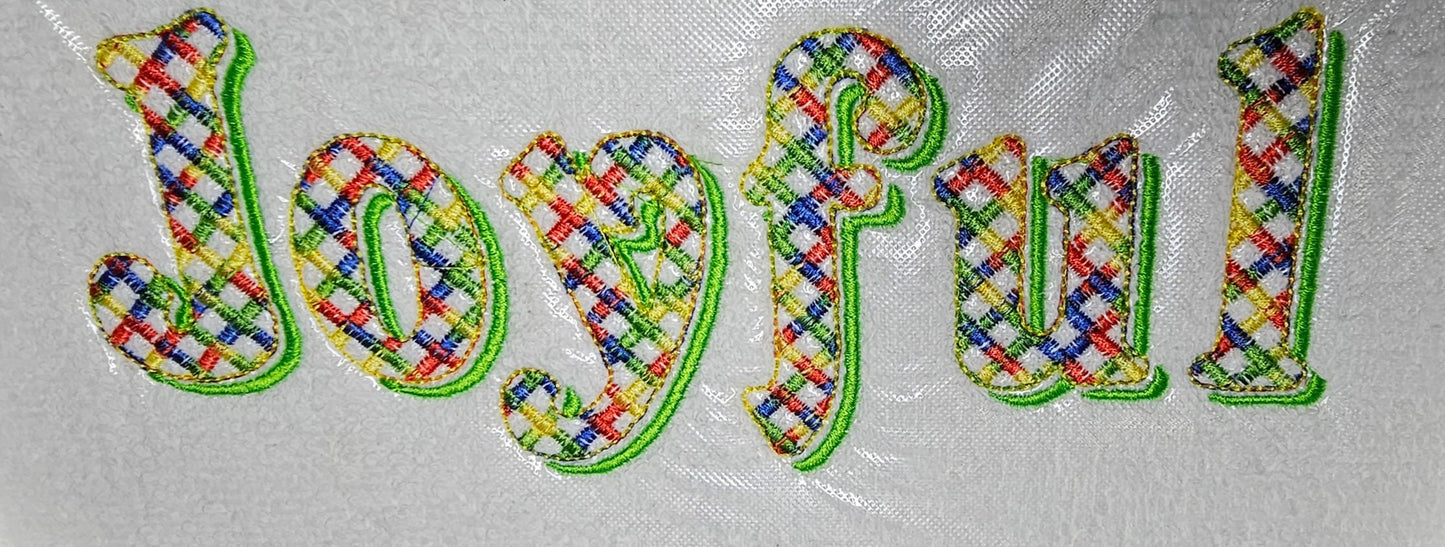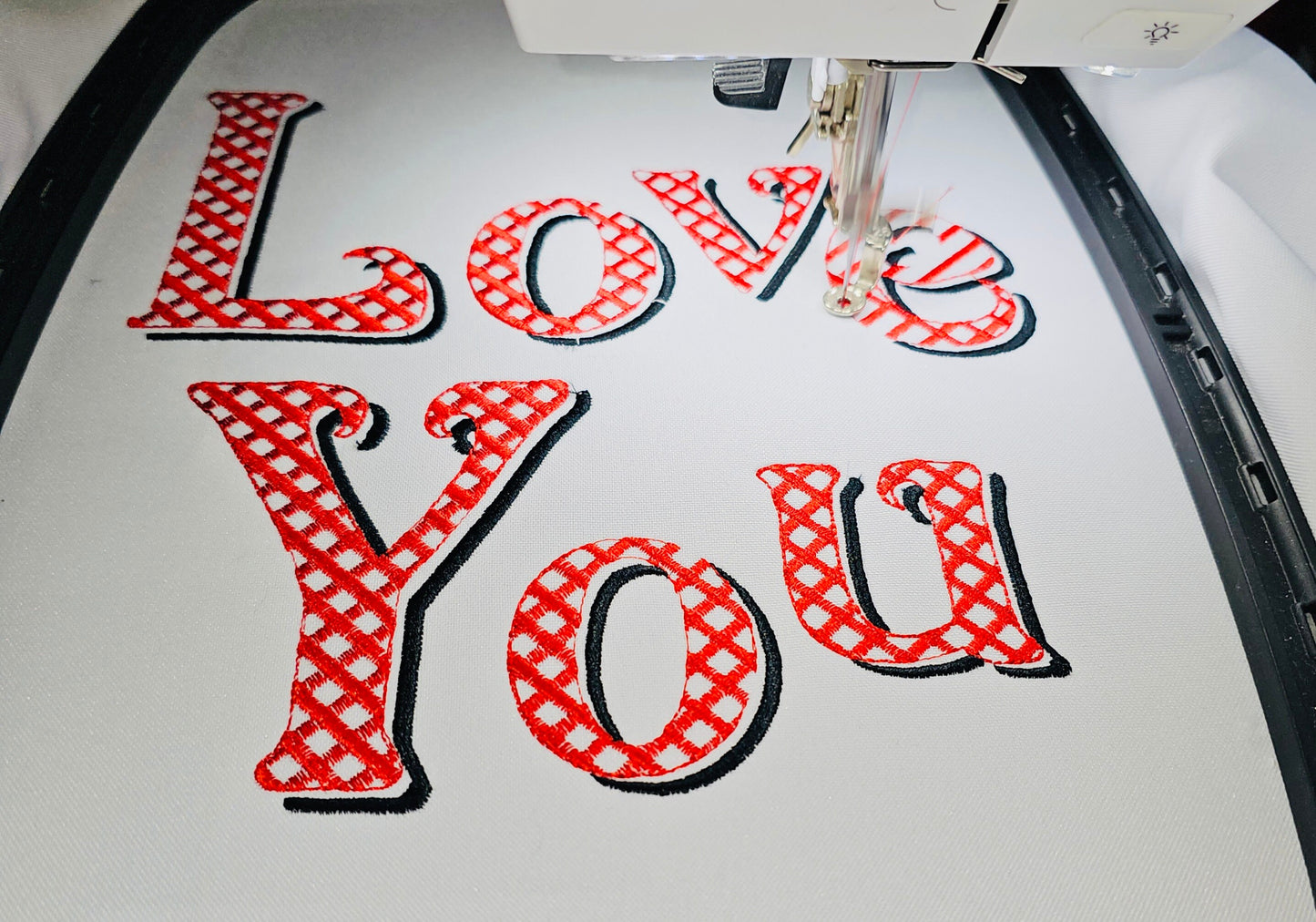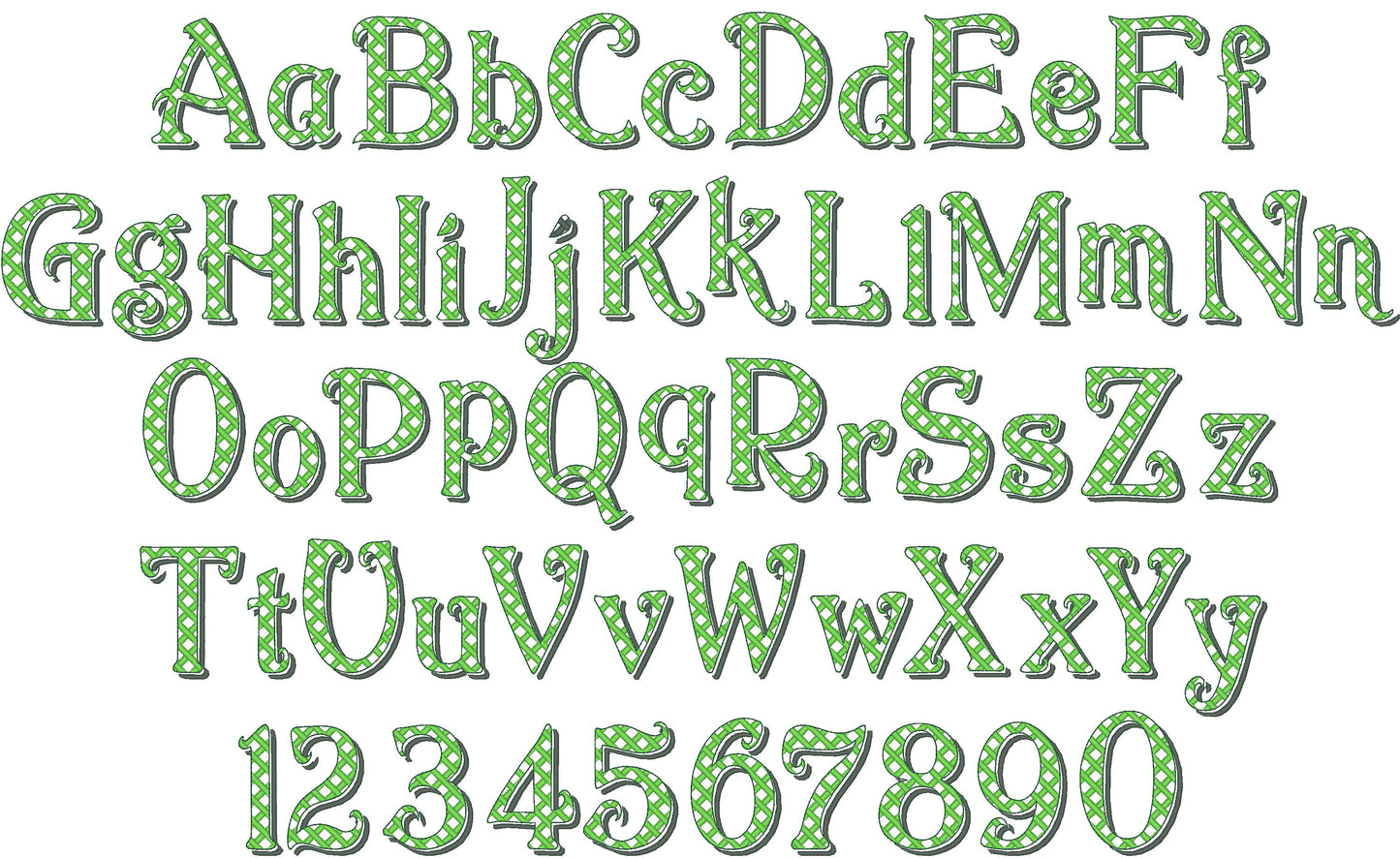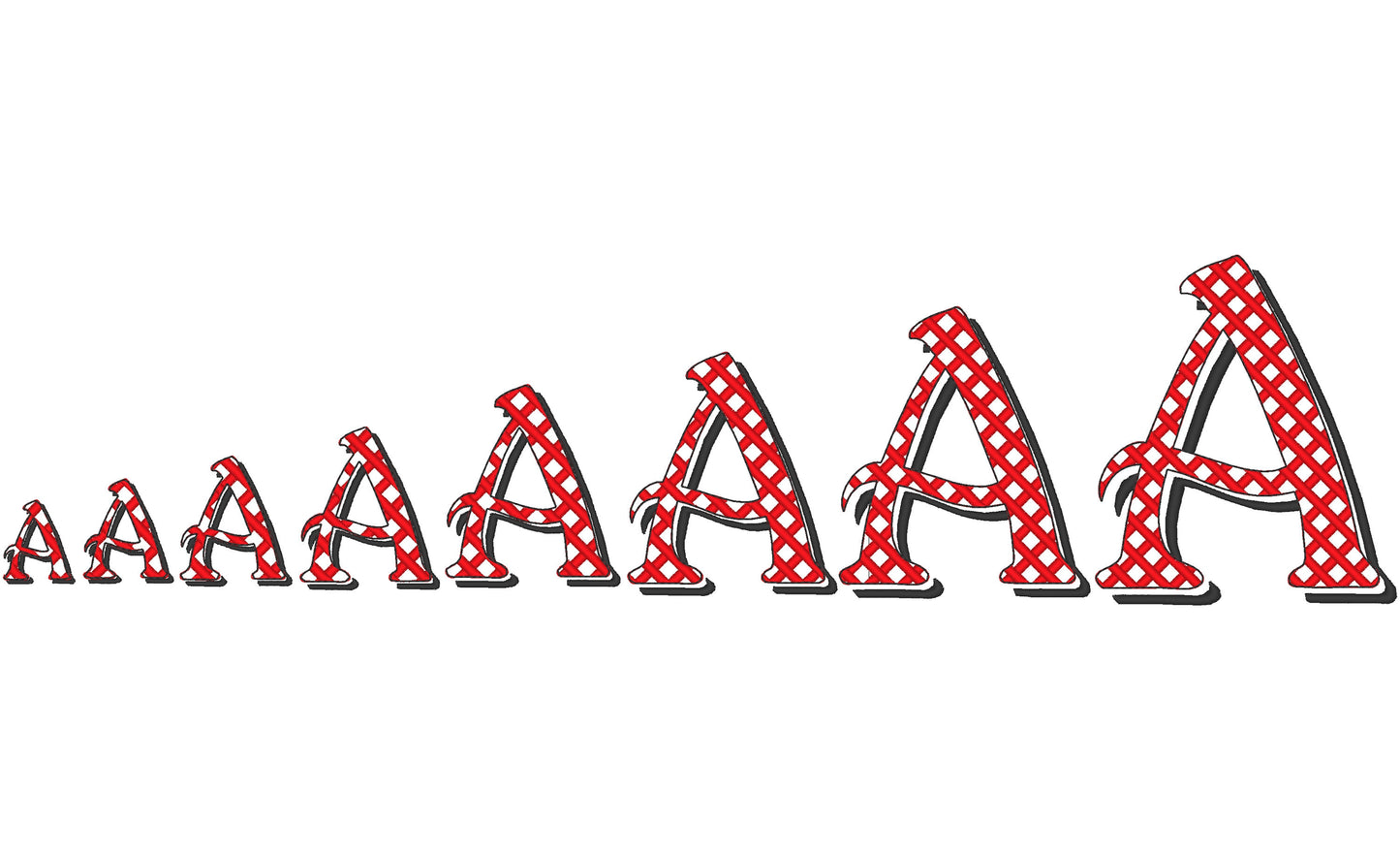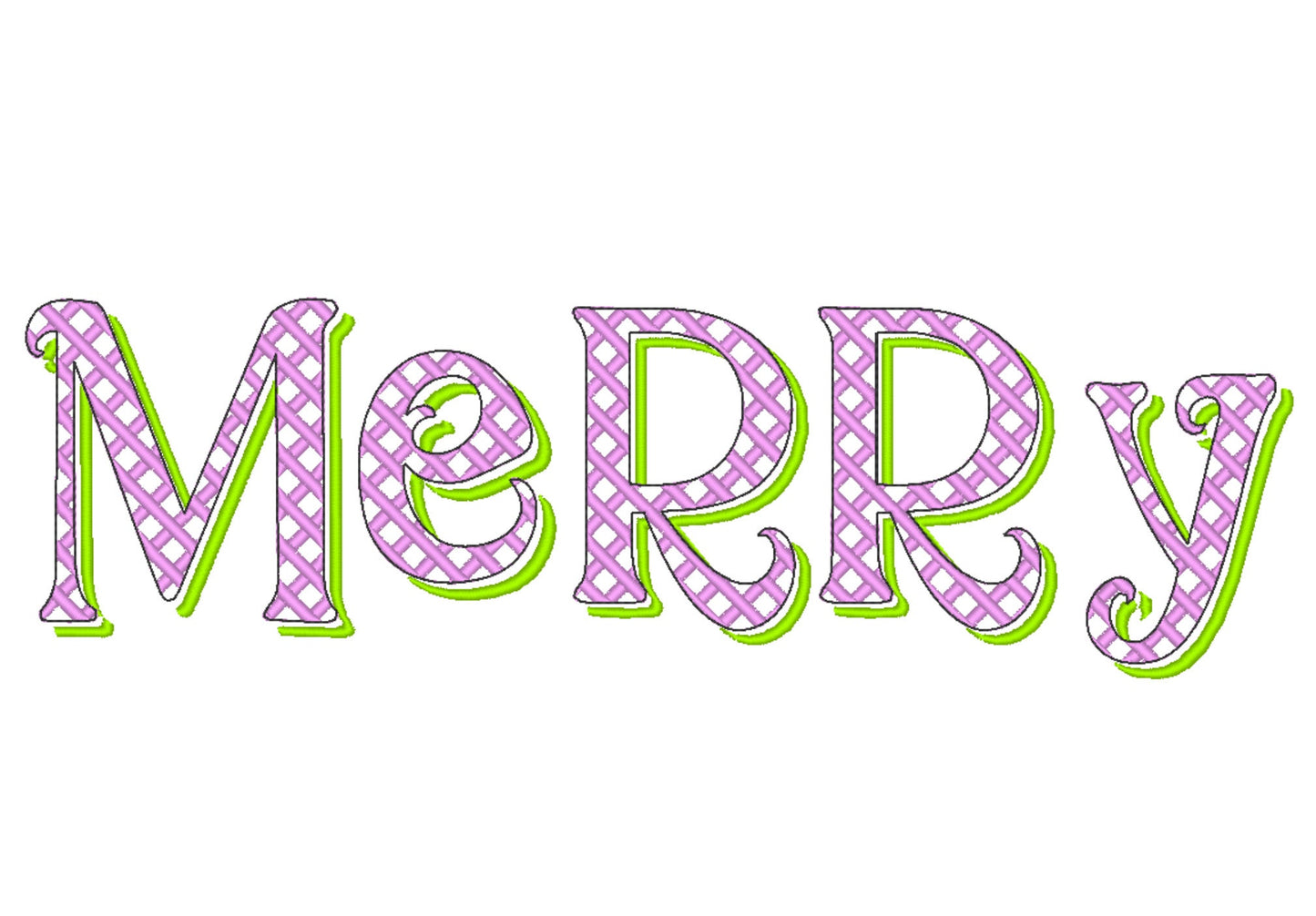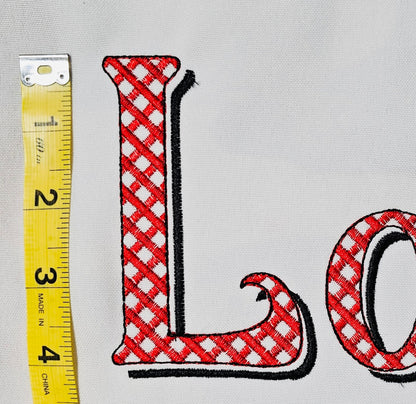
Checkered Shadow Font
Or click to open the linkA checkered light stitch font with a shadow. Lovely for Christmas stockings, holiday shirts, pillows and monograms.
Uppercase and lowercase letters and numbers 0 to 9. Eight sizes: 1, 1.2, 1.5, 1.9, 2.4, 2.8, 3.4 and 4 inches. Light stitching lets the fabric show through.
- Checkered shadow font, light stitch
- Uppercase, lowercase, numbers 0 to 9
- 8 sizes, 1 to 4 in